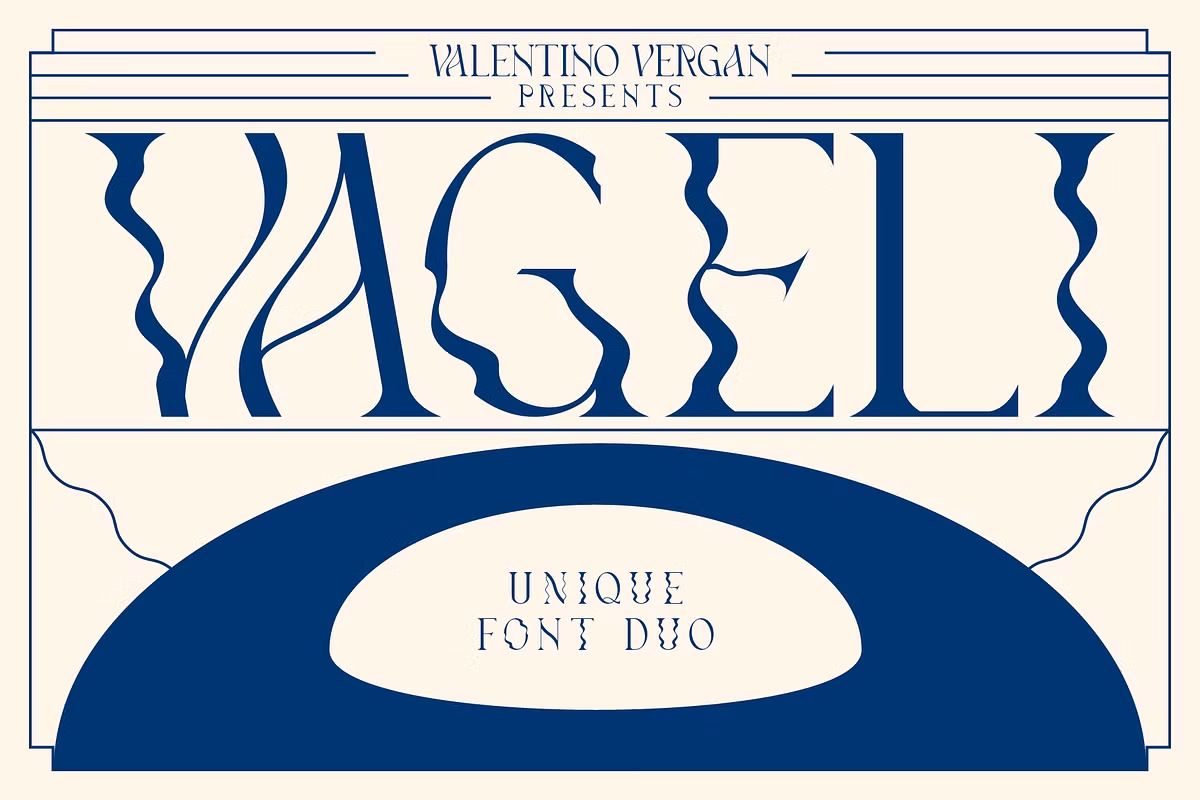
Vageli - Unique Font Duo Free Download
Vageli - Unique Font Duo Free Download is an elegant and versatile font bundle that includes two beautifully crafted fonts designed to complement each other perfectly. With a combination of a modern serif and a flowing script font, this duo is ideal for creating stylish branding, logos, invitations, and creative projects. Whether you’re working on a luxury brand, a wedding event, or a sophisticated marketing campaign, Vageli - Unique Font Duo Free Download offers the flexibility to experiment with different combinations of fonts in personal projects before purchasing a commercial license. Add elegance, personality, and balance to your designs with this beautifully crafted font duo.